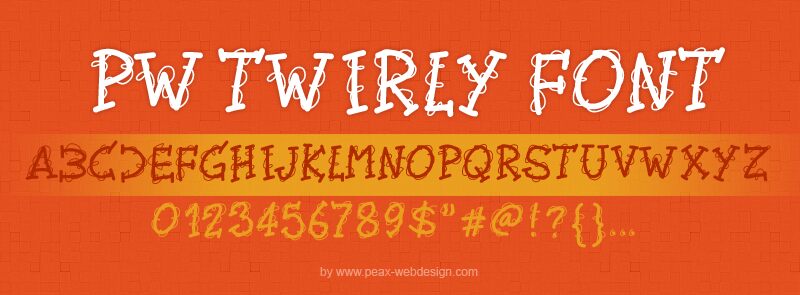
PW Twirly by Peax Webdesign is a free decorative display font with broad, hand-drawn capitals wrapped in loose curling lines. Heavy central strokes keep the letters recognizable beneath the ornament. The loops wander across edges and openings, giving the alphabet the look of doodles layered over poster lettering.
Those looping marks can echo hand-drawn patterns or lively character illustration on children's packaging, party posters, and craft branding. In publishing, the same scribbled detail can turn a magazine cover line or activity-book title into part of the artwork rather than neutral type.